Modern Serif Fonts for Branding: How Creators Can Use Elegant Fonts to Elevate Their Designs
Serif fonts are having a major moment—and not in the old-fashioned way you might expect. Today’s modern serif fonts blend classic elegance with bold, contemporary styling, making them perfect for creators who want their designs to feel premium, stylish, and professional.
If you’re designing for Etsy, print-on-demand, or Cricut projects, choosing the right serif font can completely transform your product. From luxury branding to retro-inspired t-shirts, the right typography does more than look good—it sells.
Let’s break down how these fonts work, and how you can actually use them in your creative workflow.
Here’s a curated look at some standout serif fonts and how they fit into real-world design projects:
1. Marlyn Tomorrow – Luxury Minimal Serif
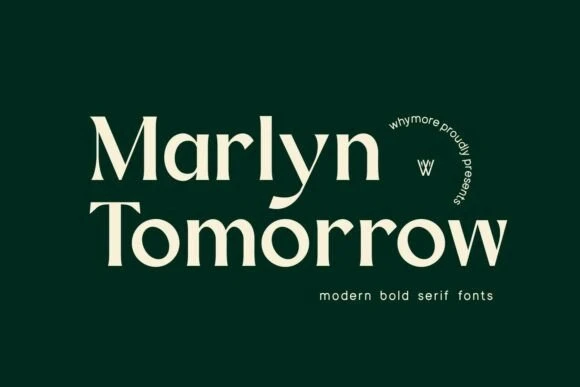
A refined serif typeface designed for branding and editorial layouts, perfect for logos, packaging, and fashion-inspired designs.
Use it for:
- High-end brand logos
- Skincare or beauty packaging
- Pinterest-style quote graphics
2. Strong Font – Classic Meets Modern
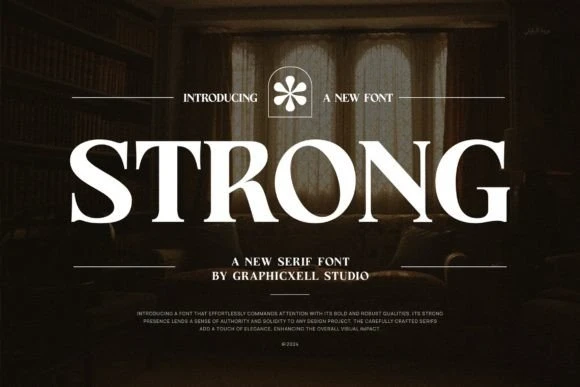
A highly readable serif with a classy, modern tone. It’s versatile enough for both branding and everyday design projects.
Use it for:
- Wedding invitations
- Product labels
- Social media templates
3. Milk and Honey – Bold Display Serif
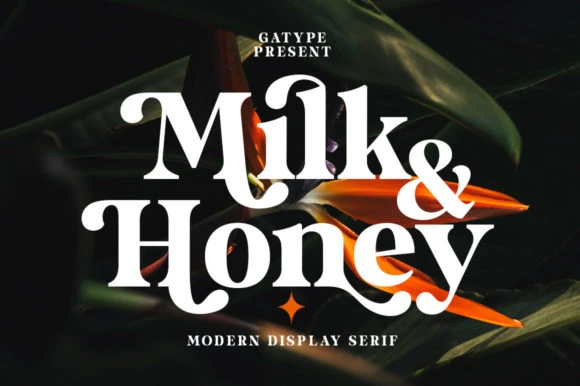
This font stands out with thick lettering and decorative glyphs, making it ideal for statement designs.
Use it for:
- T-shirt designs
- Posters
- Etsy wall art
4. Cruel Summer – Elegant Italic Serif
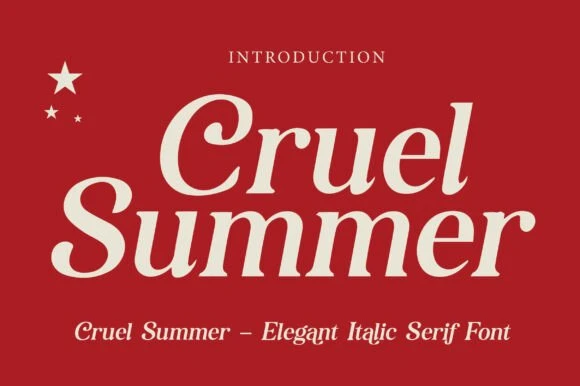
An italic serif that blends classic typography with a modern editorial feel.
Use it for:
- Magazine-style layouts
- Website headers
- Feminine brand identities
5. ET Emilia Grace – Clean and Versatile
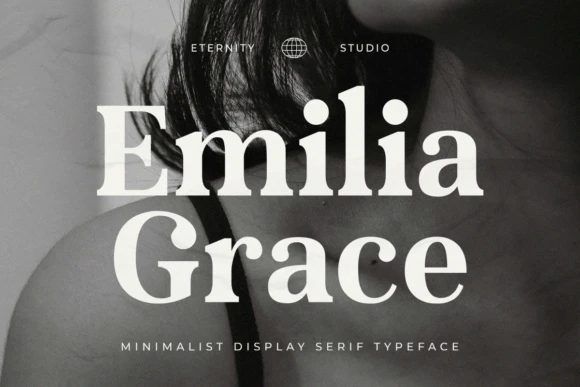
A modern serif with refined details and strong readability, suitable for both print and digital designs.
Use it for:
- Book covers
- Packaging
- Wedding stationery
6. Fresh Mango – Retro Serif with Personality
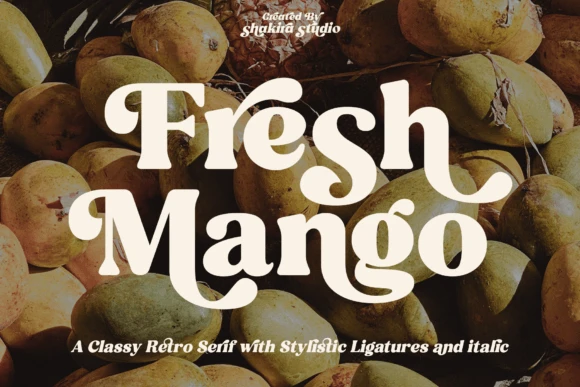
A vintage-inspired serif with curved terminals and ligatures that add a nostalgic flair.
Use it for:
- Retro t-shirts
- Holiday cards
- Boho branding
7. Kind Avenue & Praise – Stylish Branding Fonts
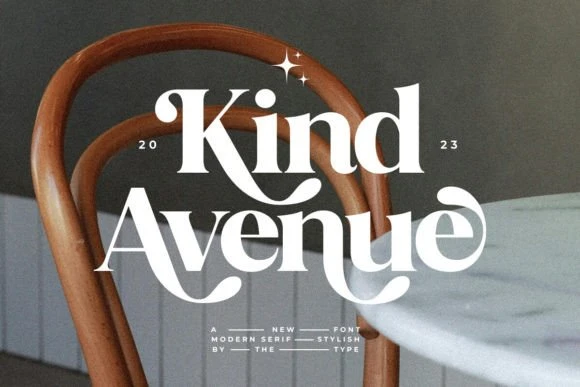
Both fonts offer strong branding potential with ligatures and elegant styling, ideal for logos and premium visuals.
Use them for:
- Logo design
- Packaging
- Instagram branding
Why Modern Serif Fonts Are Trending in Creative Projects
Modern serif fonts stand out because they combine two powerful qualities: timeless structure and expressive personality.
Fonts like Marlyn Tomorrow feature clean, high-contrast strokes and elegant proportions that create a refined, editorial look. These types of fonts are often used in fashion branding, magazines, and luxury packaging because they instantly communicate sophistication.
On the other hand, fonts like Milk and Honey lean into bold, thick lettering with decorative swashes, making them ideal for eye-catching product designs and social media graphics.
This flexibility is exactly why serif fonts are so valuable for creators—you can go minimal and modern or bold and expressive depending on your niche.
How to Use Serif Fonts for Cricut, Etsy, and POD
Fonts aren’t just for digital designs—they’re a core part of physical products.
Here’s how creators typically use these fonts:
For Cricut & Silhouette
Most of these fonts are compatible with cutting machines, meaning you can:
- Create vinyl decals
- Design custom mugs and tumblers
- Make personalized signs
Since these fonts include clean spacing and kerning, they cut well without extra adjustments.
For Etsy Products
Typography-based products are some of the easiest to launch:
- Printable wall art
- Wedding templates
- Planner covers
A font like Milk and Honey or Fresh Mango works especially well for bold, scroll-stopping listings.
For Print-on-Demand
Think beyond simple text—use fonts to build a visual identity:
- T-shirts with statement quotes
- Tote bags with minimal branding
- Stickers using decorative ligatures
The key is pairing the font style with your audience. Retro fonts sell well in niche markets, while elegant serif fonts perform better in luxury or wedding categories.
Working With Glyphs, Ligatures, and Alternates
Many of these fonts are PUA encoded, which means you can access special characters like swashes and ligatures easily.
But here’s where many beginners get stuck.
To unlock the full potential of these fonts:
- Use Character Map (Windows) or Font Book (Mac)
- Or open them in design tools like Illustrator or Canva
- Experiment with alternates for unique lettering styles
How do I choose the right serif font for my brand?
Choose a serif font based on your brand personality and target audience. Minimal serifs communicate luxury, bold display serifs create attention, retro serifs evoke nostalgia, and elegant serifs deliver a refined editorial feel.